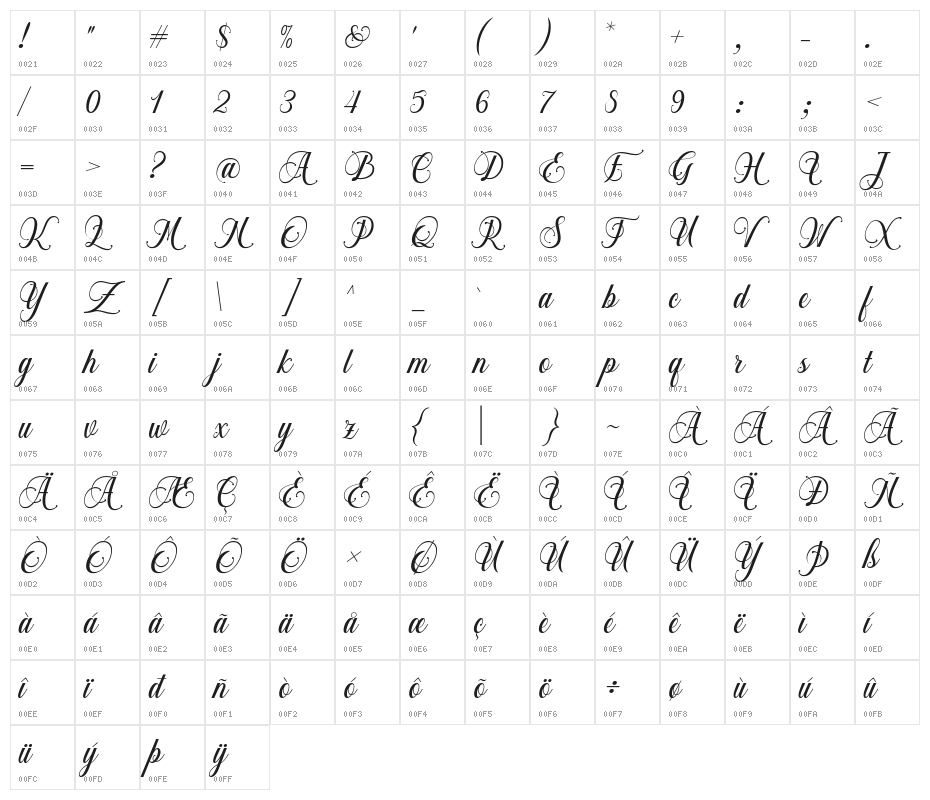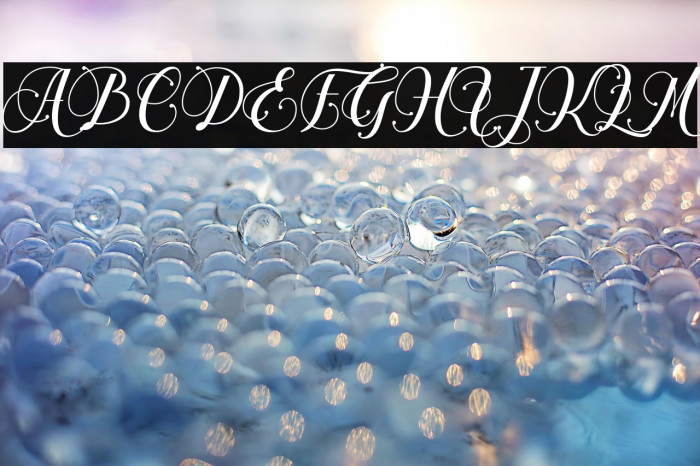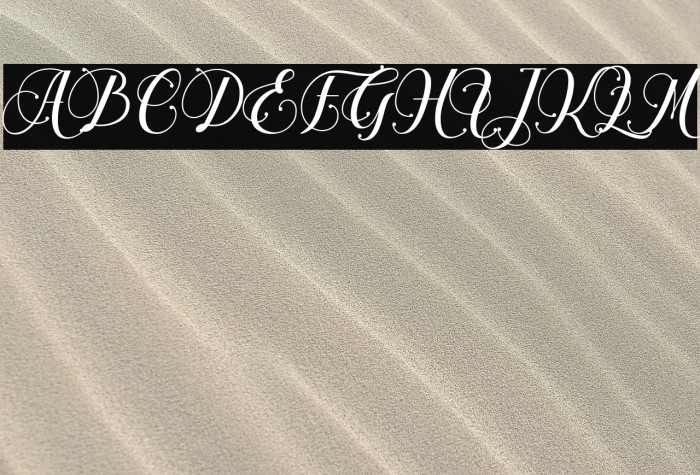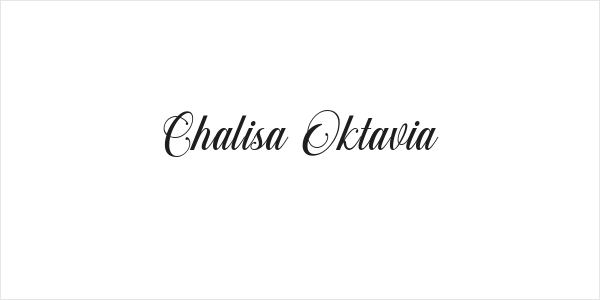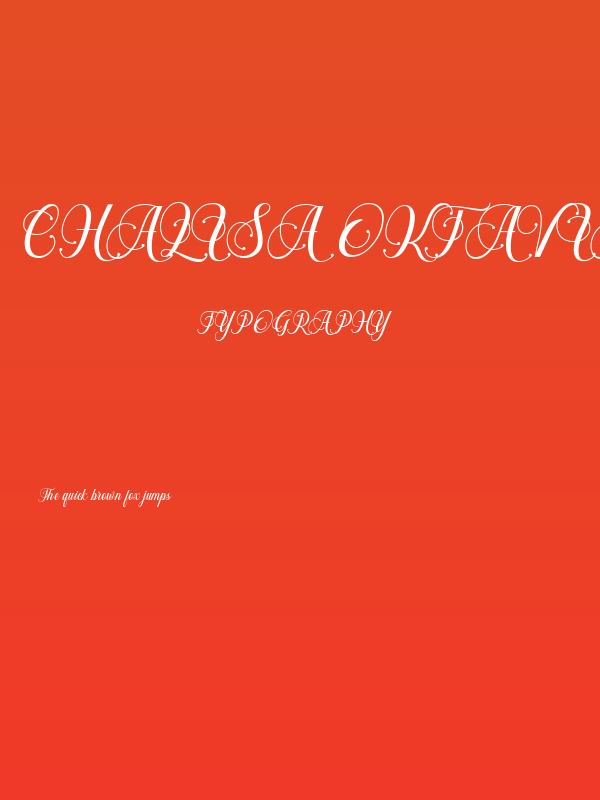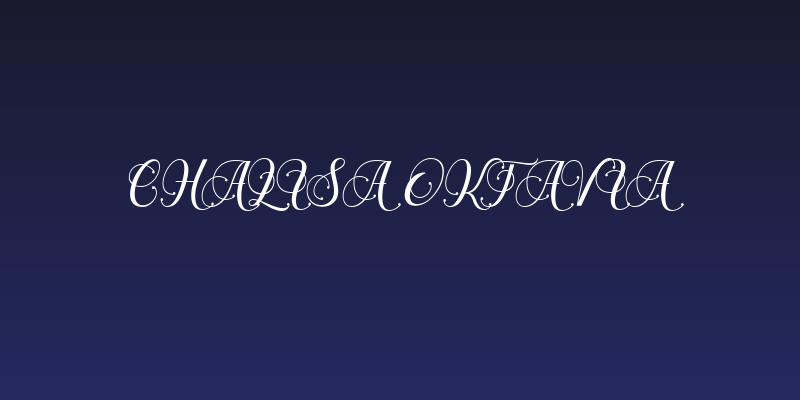
Chalisa Oktavia Font
Chalisa Oktavia Description
This elegant script font features a sophisticated and flowing design, characterized by its graceful curves and intricate swashes. The uppercase letters are adorned with decorative flourishes, adding a touch of luxury and refinement. The lowercase letters maintain a smooth and connected style, enhancing readability while preserving the font's artistic flair. The numerals and special characters are designed with the same attention to detail, ensuring consistency across all elements. This font's high contrast in stroke thickness adds to its dramatic and eye-catching appearance, making it suitable for a variety of creative applications.
| Use Case | Logos, Invitations, Decorative headlines |
| Proposed Projects | Ideal for wedding invitations, luxury branding, elegant packaging, and decorative headlines. |